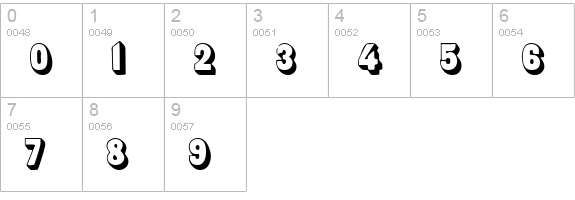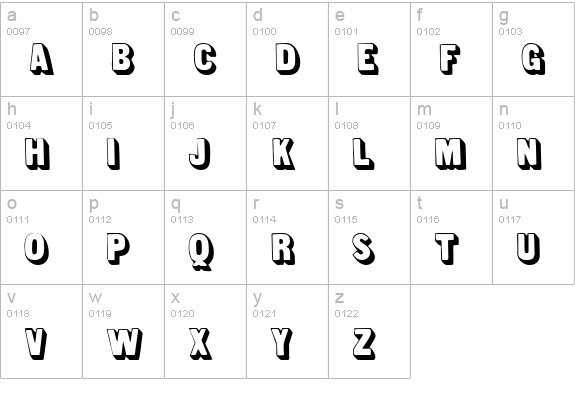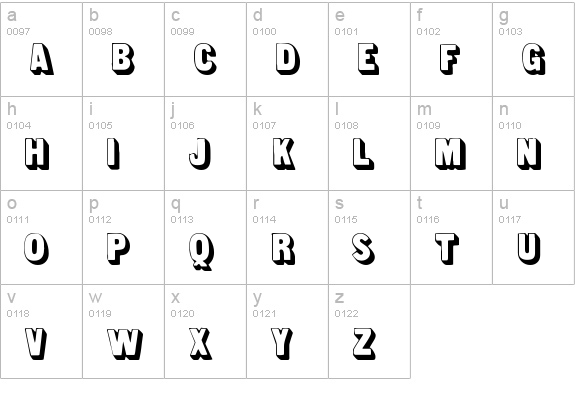
Lunch Font Details
Introducing the captivating Lunch font, a delightful typeface that effortlessly combines elegance with a touch of playfulness. This font is the perfect choice for those seeking to add a dash of personality and charm to their designs. With its carefully crafted letterforms and graceful curves, Lunch font instantly captures attention and creates a lasting impression. Its versatile nature makes it suitable for a wide range of projects, from branding and packaging to invitations and social media graphics. Whether you're designing a menu for a trendy café or creating eye-catching signage for a vibrant event, this font will surely elevate your creations to new heights. One of the most remarkable aspects of Lunch font is that it is freely available to download at FontsMarket.com. This means that you can effortlessly enhance your designs without any additional cost. Embrace the freedom of creativity with this stunning font, and unlock a world of possibilities for your projects. Download Lunch font today from FontsMarket.com and experience the joy of incorporating this beautiful typeface into your designs. With its timeless appeal and generous availability, Lunch font is sure to become a staple in your font library. Don't miss out on this incredible opportunity to effortlessly elevate your designs and make a lasting impression. Grab Lunch font now and let your creativity soar!